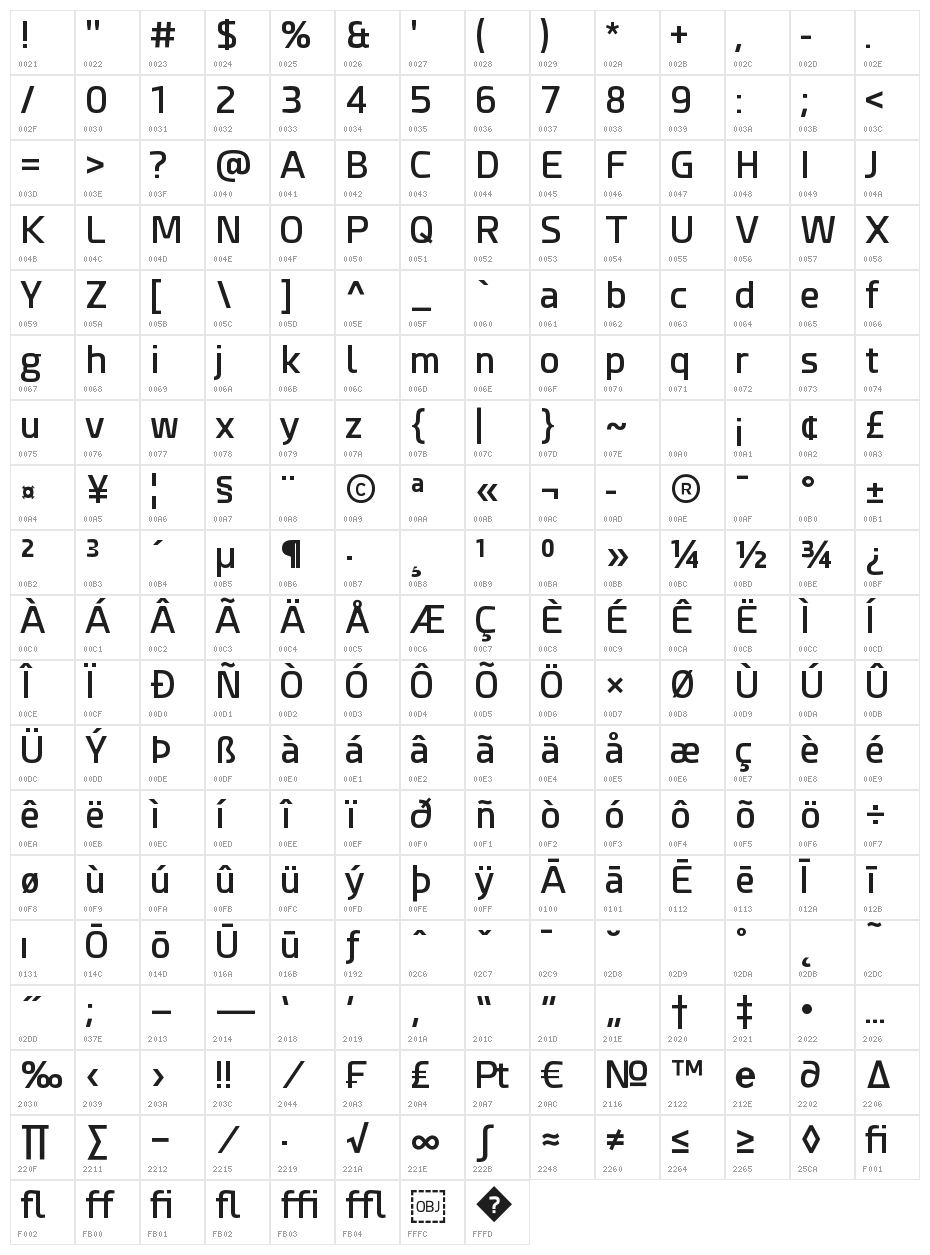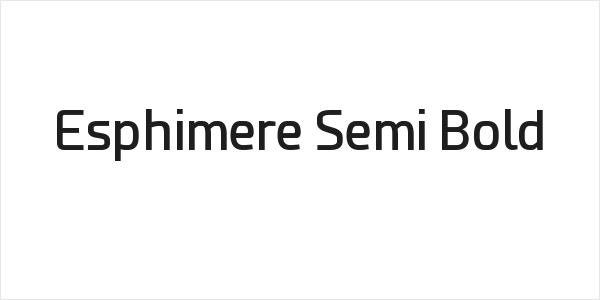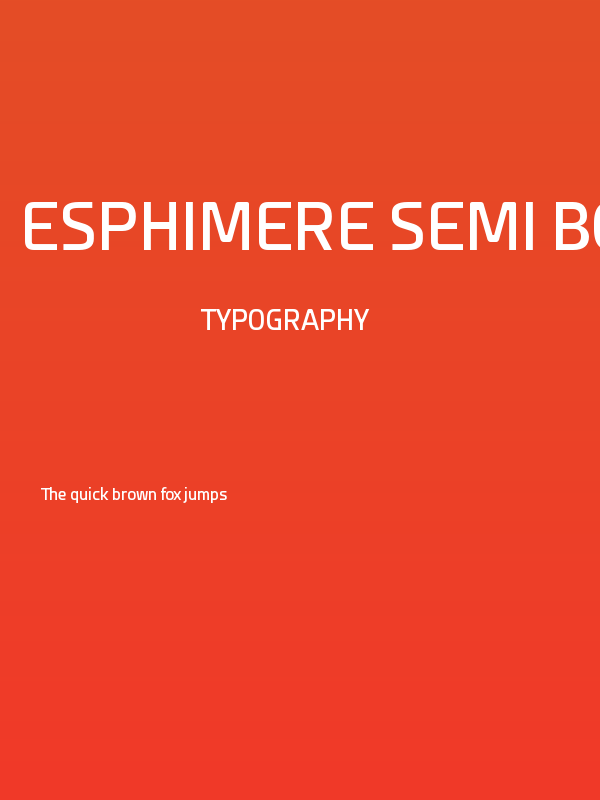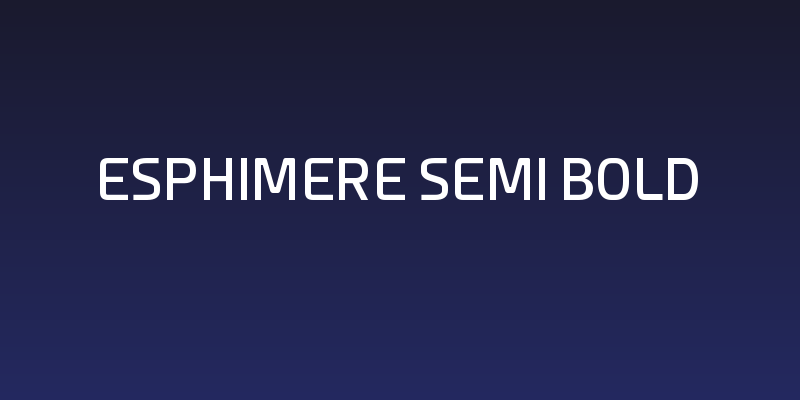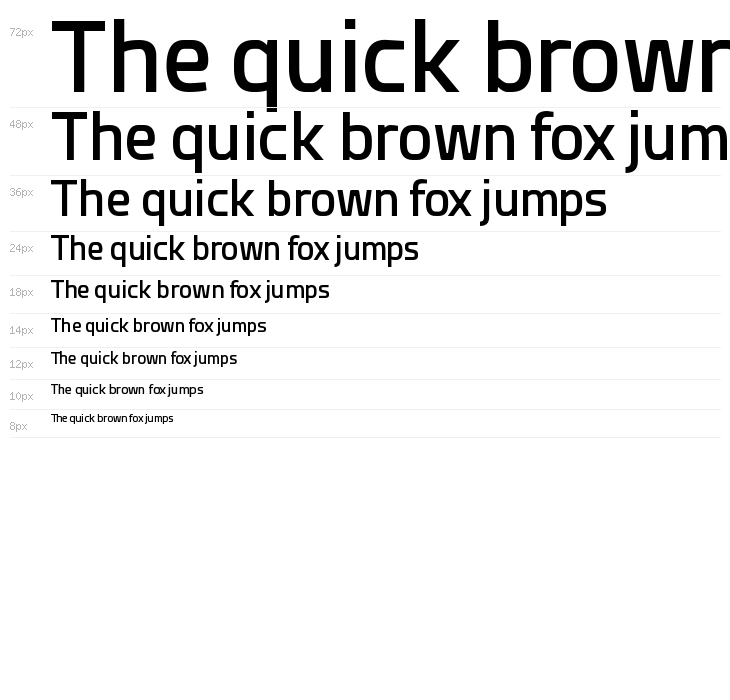
Esphimere Semi Bold Font
Esphimere Semi Bold Description
This font presents a clean and modern sans-serif style with a semi-bold weight, providing a strong yet approachable appearance. The characters are well-balanced with consistent stroke widths, offering a harmonious and professional look. The uppercase and lowercase letters are designed with a geometric precision, making them highly legible. The numerals and special characters maintain the same clarity and uniformity, ensuring versatility across various applications.
| Proposed Projects | Ideal for branding, digital interfaces, signage, and editorial design where clarity and modernity are essential. |